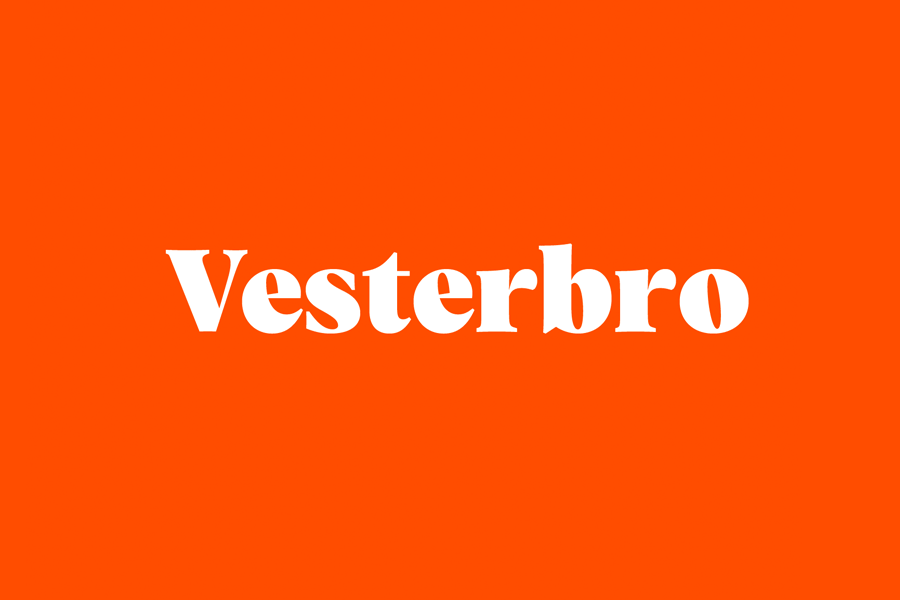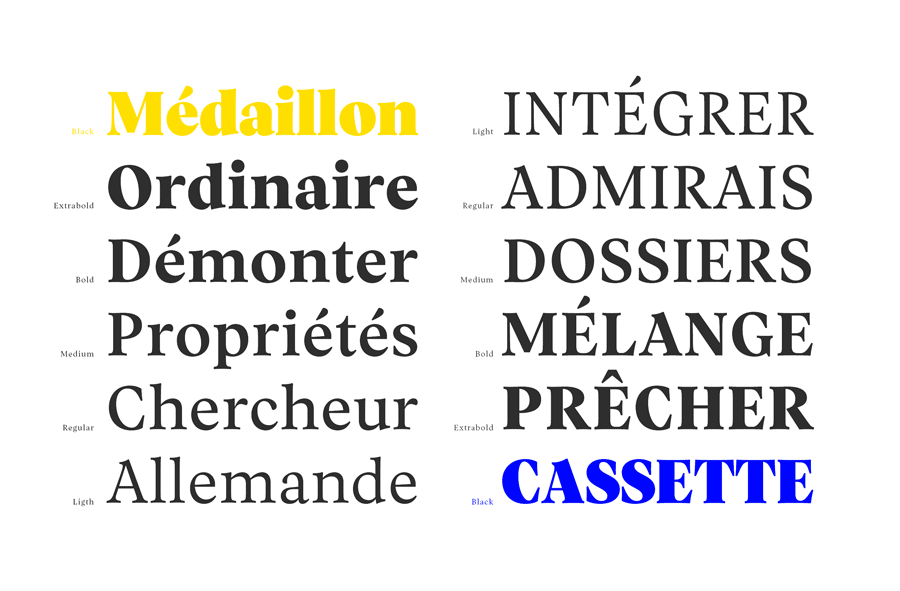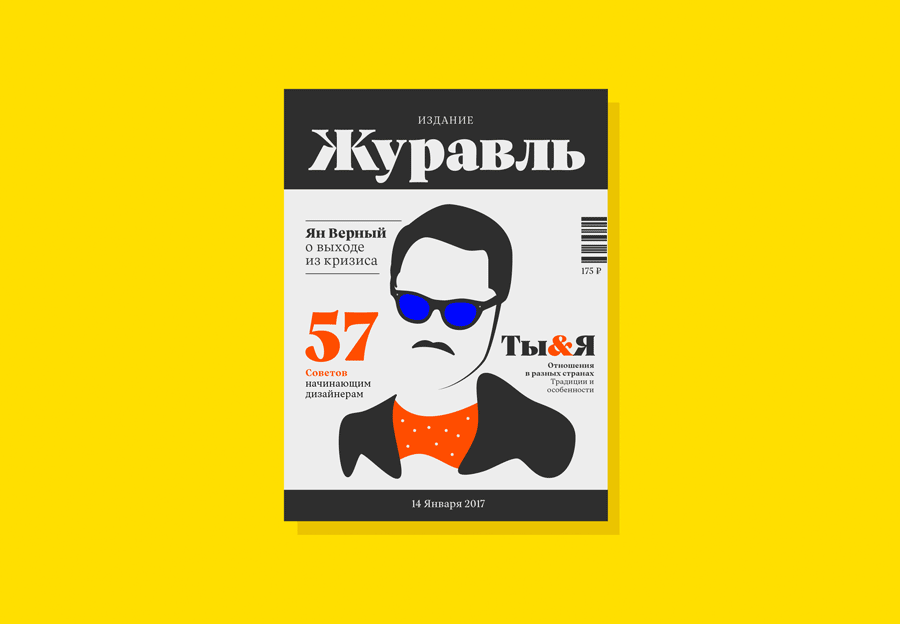
Vesterbro is a high contrast serif font family that comes with 6 weights. The star weight is the boldest, named the Poster weight. The Poster weight is warmer than most Didot font, according to the foundry and it has high x-heights and short serifs. Vesterbro is versatile and it can be used on poster headlines, and also body text. You can try it for free or purchase the full license for commercial use.